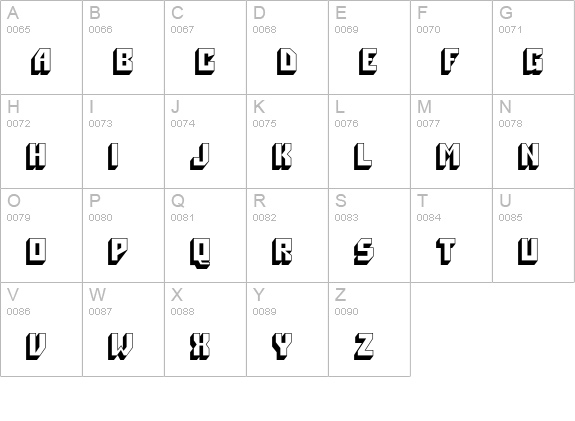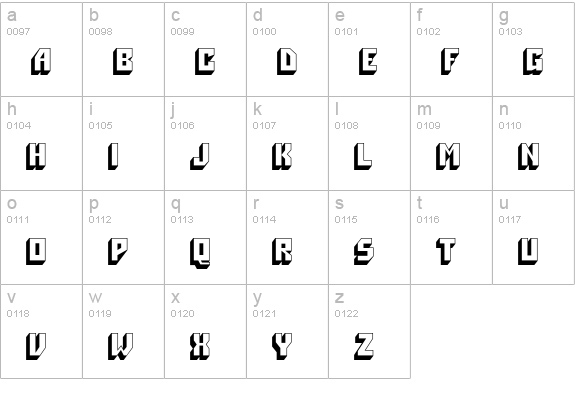
PioneerEF font is a beautifully designed typeface that exudes elegance and sophistication. With its clean lines and balanced proportions, this font is perfect for a wide range of design projects, from corporate branding to editorial layouts. What sets PioneerEF font apart is not just its stunning aesthetics, but also its accessibility. This font is available for free download at FontsMarket.com, making it an invaluable resource for designers and creatives on a budget. Whether you're working on a professional project or a personal endeavor, PioneerEF font offers the versatility and versatility you need. Its timeless appeal ensures that your designs will stand the test of time, while its extensive character set allows for seamless integration of different languages and typographic styles. The attention to detail in PioneerEF font is evident in every curve and stroke, creating a harmonious and visually pleasing reading experience. Its legibility and readability make it suitable for both large blocks of text and eye-catching headlines. With PioneerEF font, you don't have to compromise on quality or break the bank. This font is freely available to download at FontsMarket.com, allowing you to enhance your designs without any financial constraints. Embrace the power of PioneerEF font and unlock a world of possibilities for your creative endeavors.